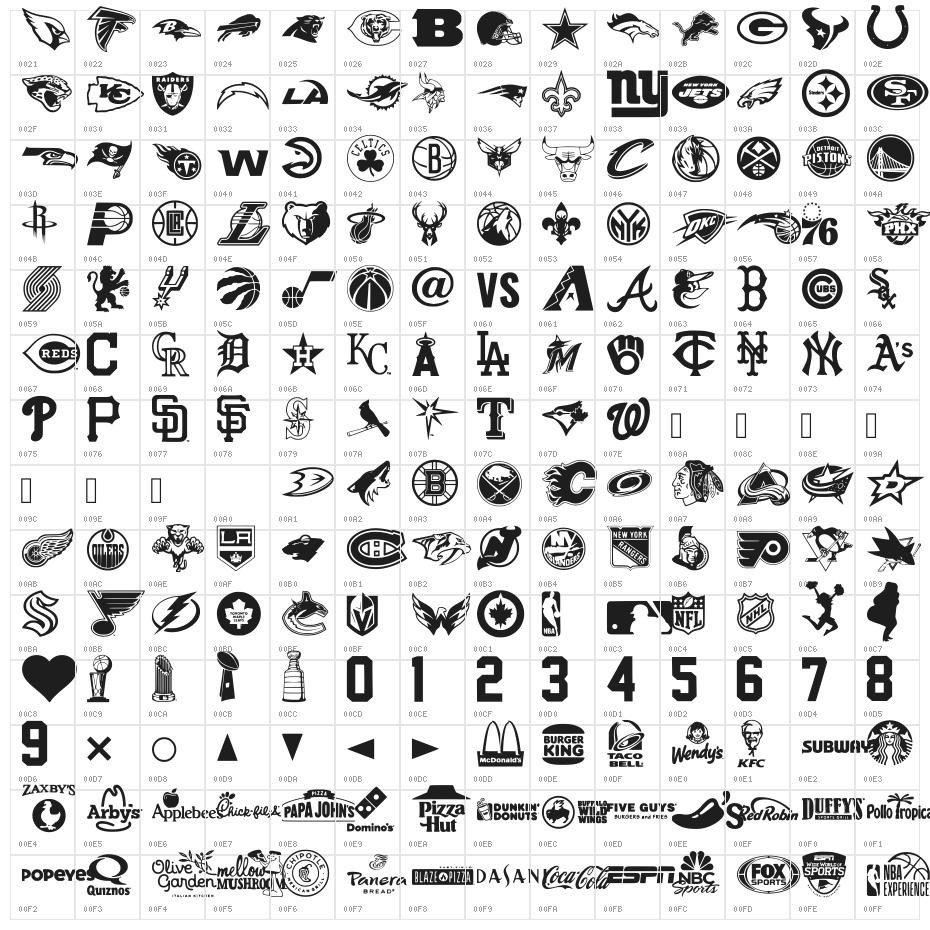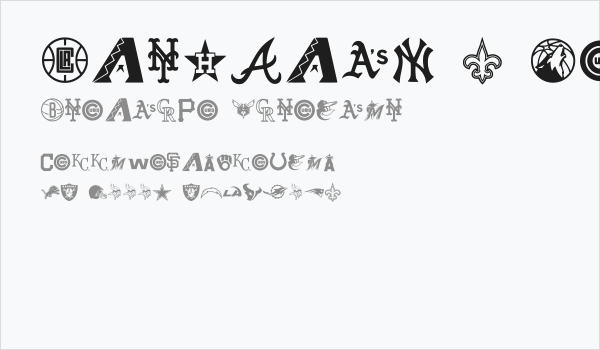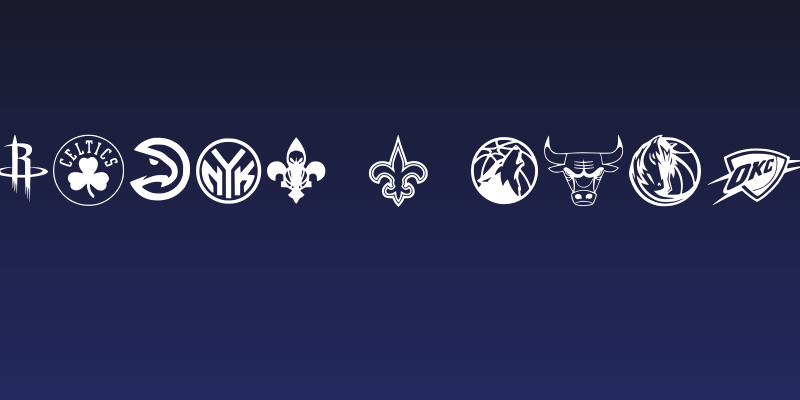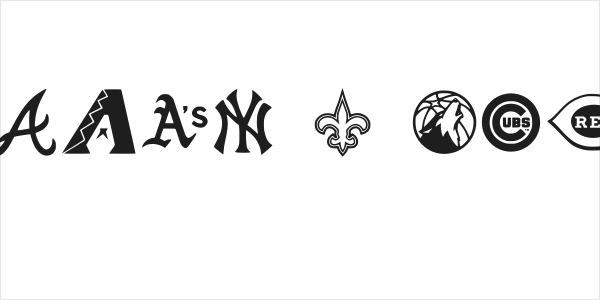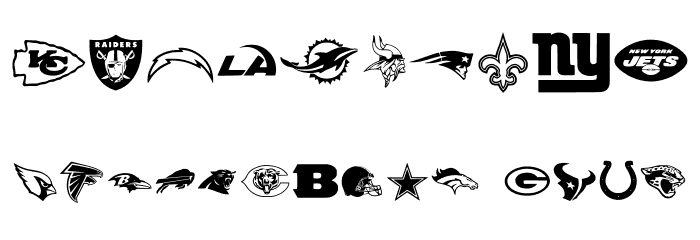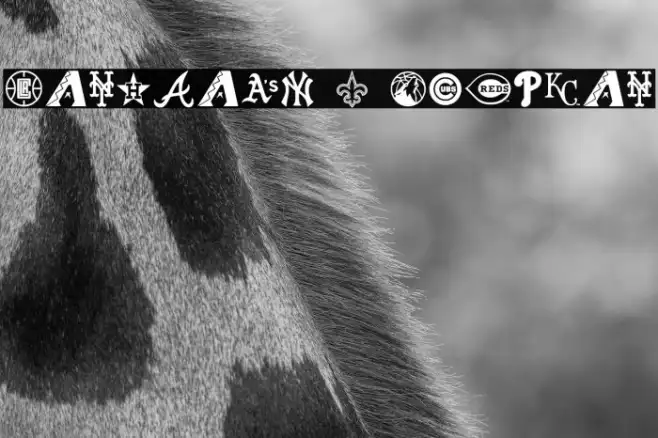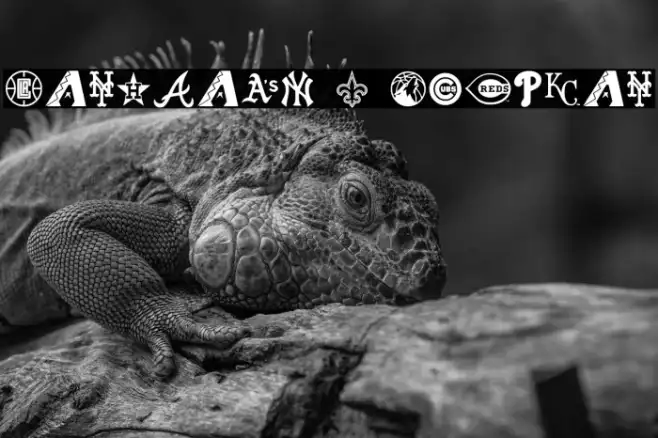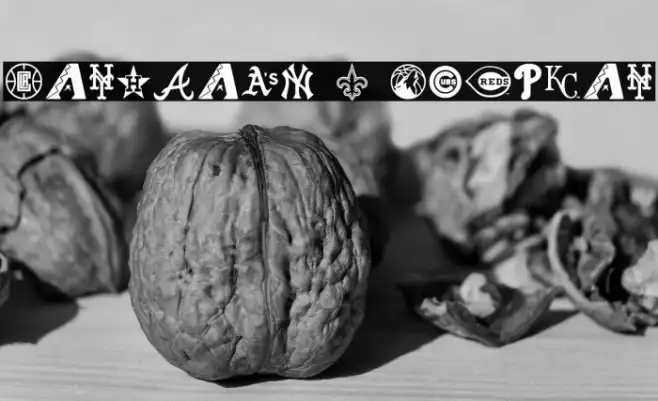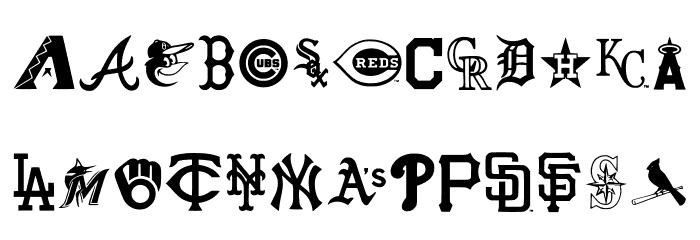
Markbats 7 Regular Font
Markbats 7 Regular Description
This is not a traditional font but rather a collection of logos and symbols representing various sports teams. Each character is uniquely designed to reflect the branding and identity of a specific team, incorporating elements such as mascots, team colors, and iconic imagery. The designs are bold and distinctive, making them instantly recognizable to fans and followers of the sports teams they represent. This collection is more of a decorative set of icons rather than a functional typeface for text composition.
| Use Case | Logos, Branding, Merchandise |
| Proposed Projects | Ideal for sports-themed designs, fan merchandise, promotional materials, and branding projects related to sports teams. |